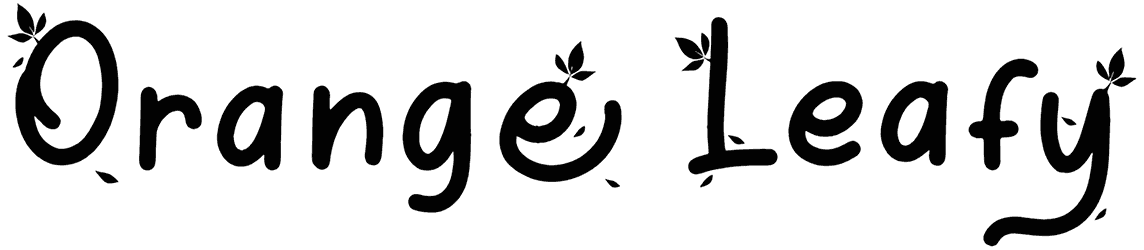
Orange Leafy Display Font
There are projects like comic books, book covers, posters, and flyers that require an illustrated font like Orange Leafy Display. This leaf font generates a leafy look to create a natural mood.